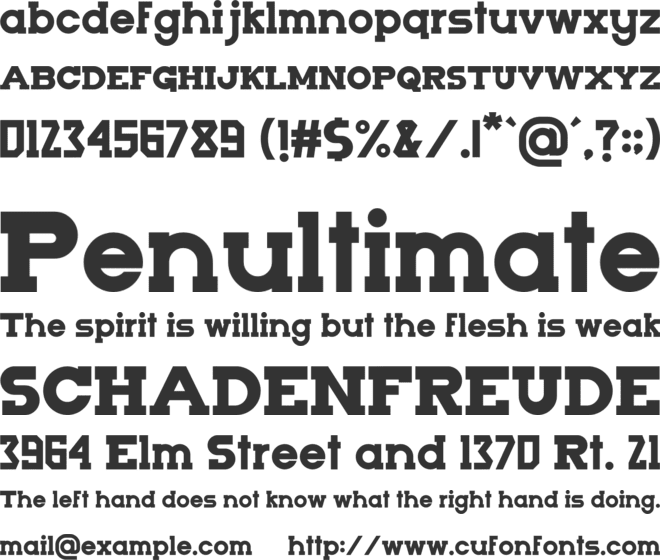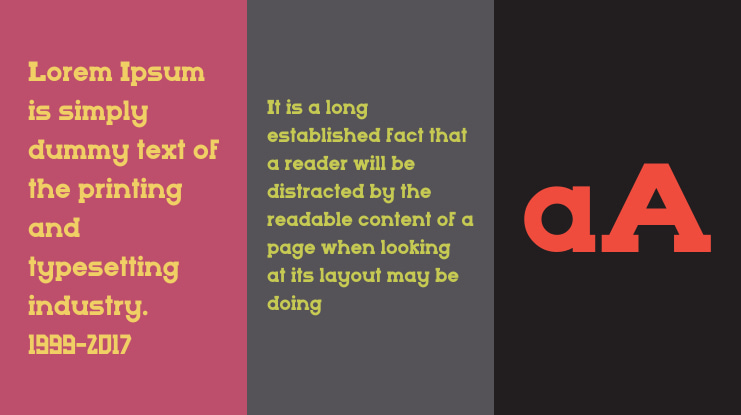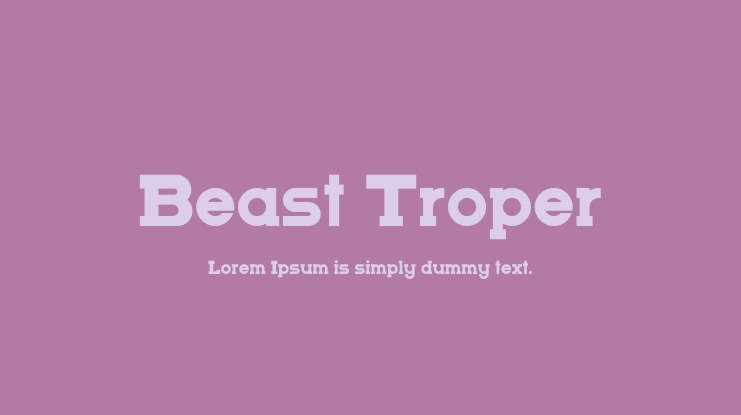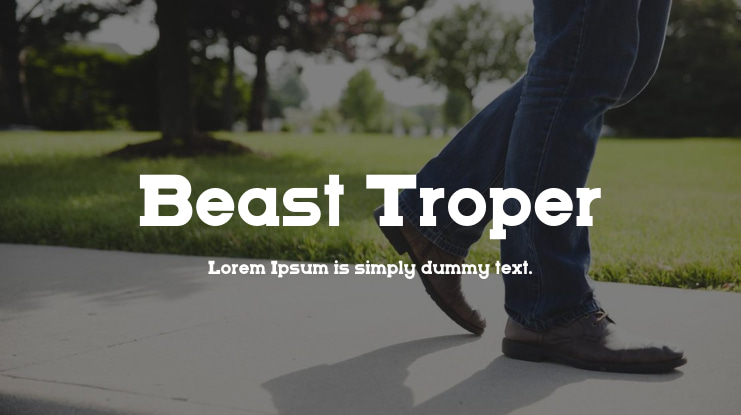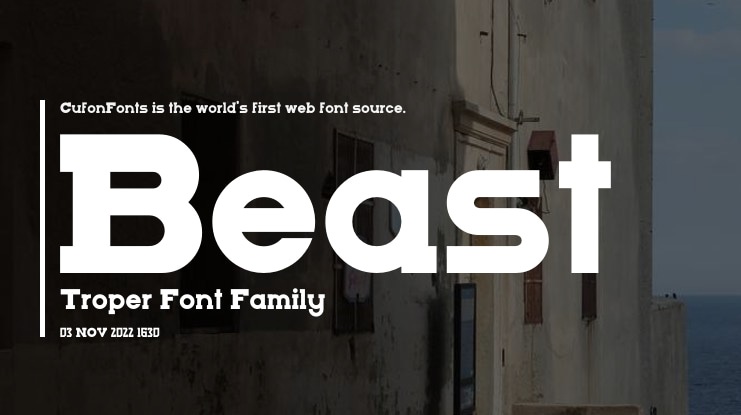
Beast Troper Font
Beast Troper is a serif display font featuring a military theme, characterized by its bold letterforms. It comes in two styles: inline and regular (solid).